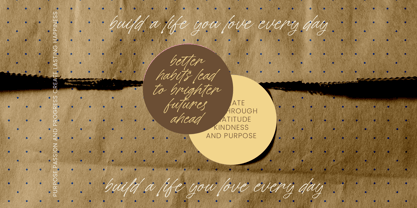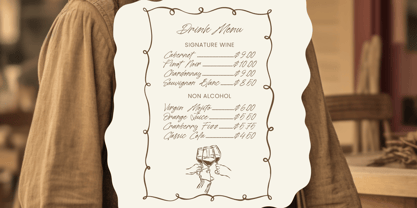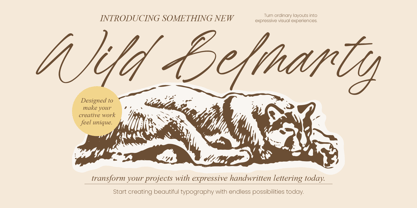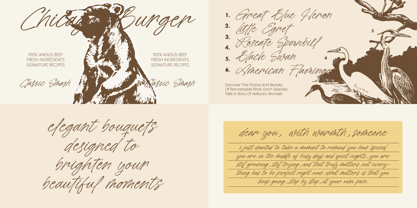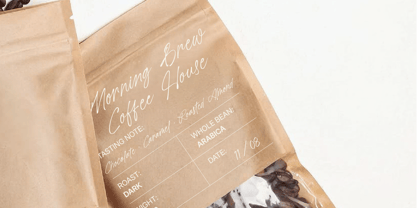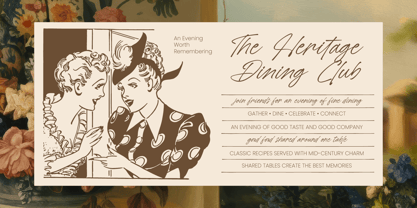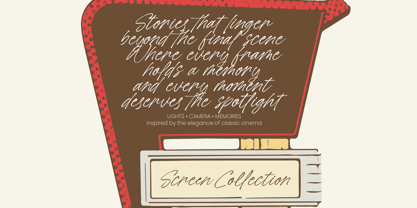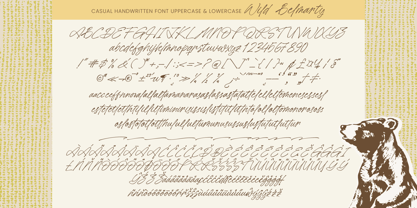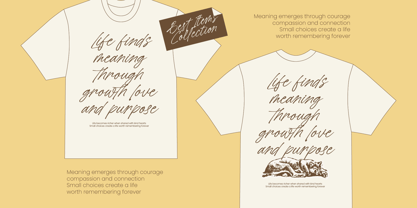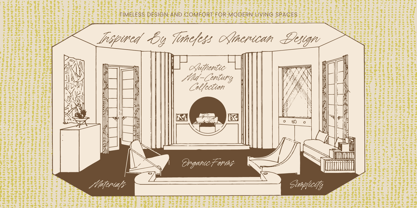
Wild Belmarty
by Letterena Studios
The Wild Belmarty Font Family was designed by Heru Utama Putra and published by Letterena Studios. Wild Belmarty contains 2 styles and family package options. More about this family
• Wild Belmarty Regular
• Wild Belmarty Italic
Elevate your creative vision with an effortless touch of human artistry. Wild Belmarty - Casual Handwritten Font captures a stunningly authentic script aesthetic, blending dynamic flow with casual elegance. Its organic strokes and expressive lettering provide a handcrafted feel that instantly bridges the gap between digital precision and artistic personality. This typeface is designed for creators who demand a high-impact visual identity that feels both personal and professional.